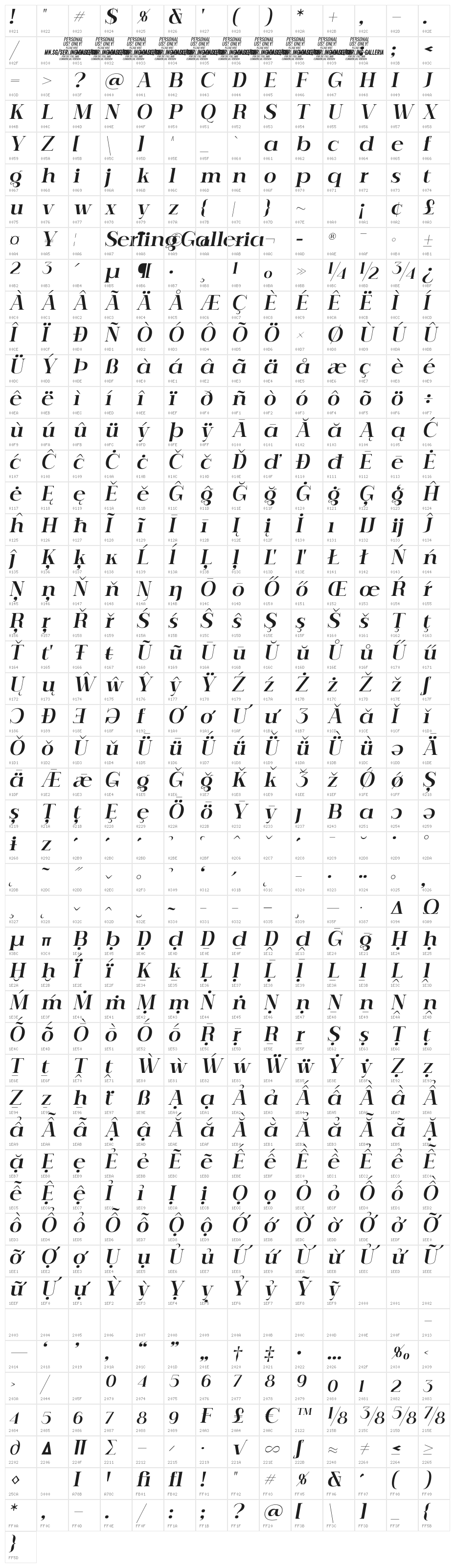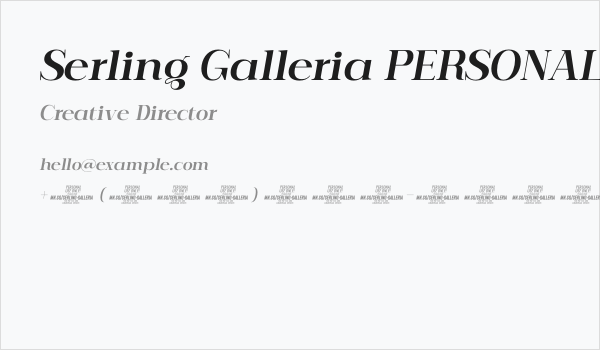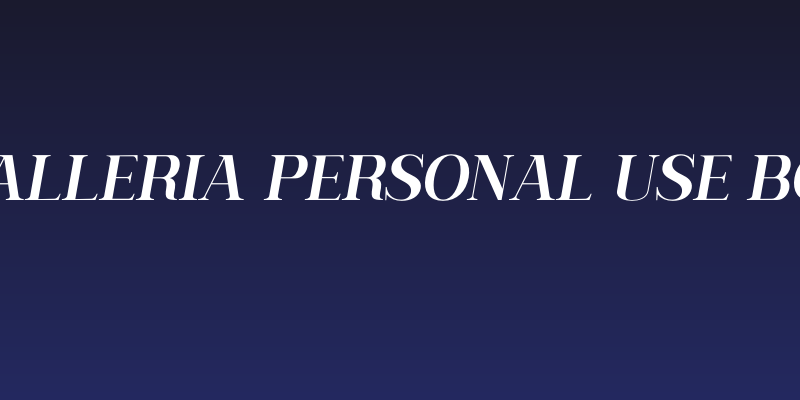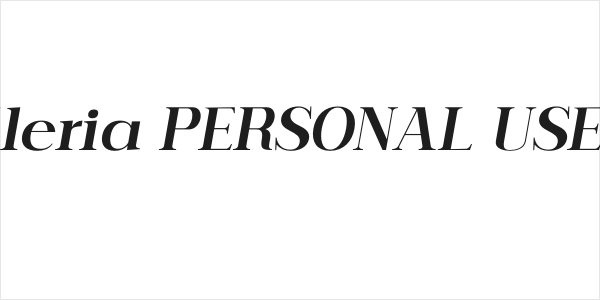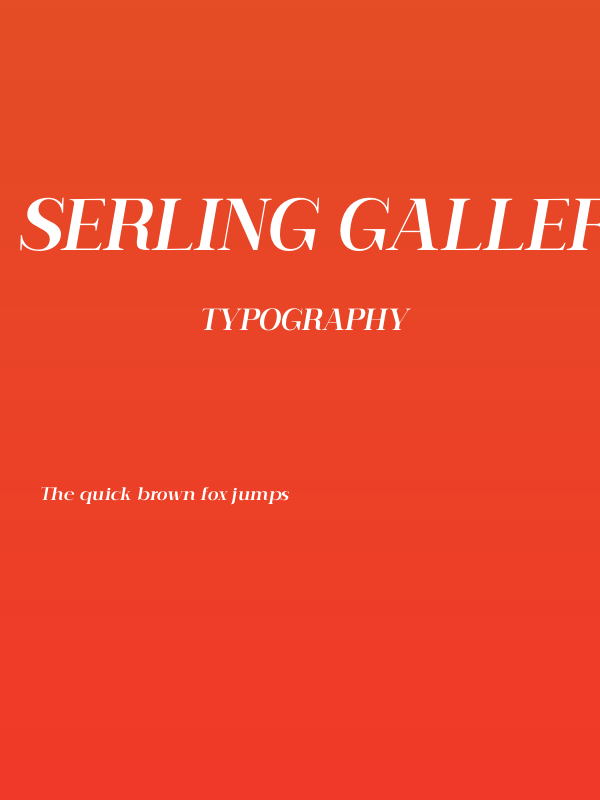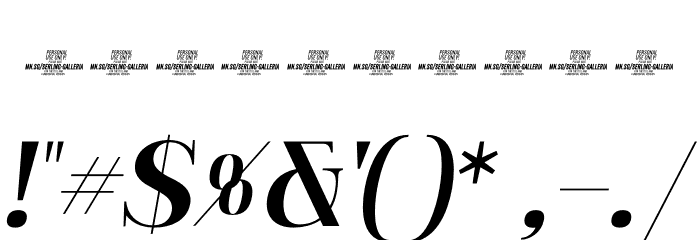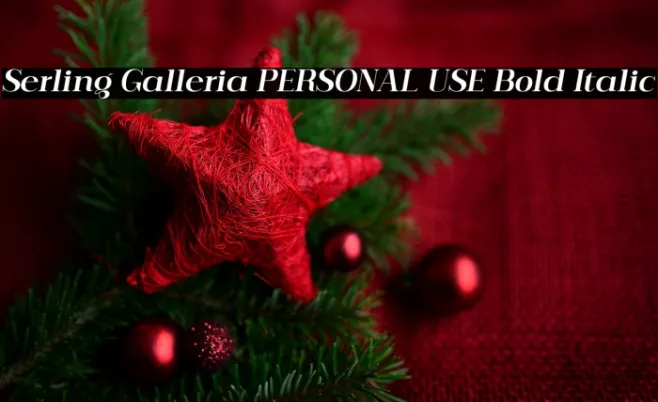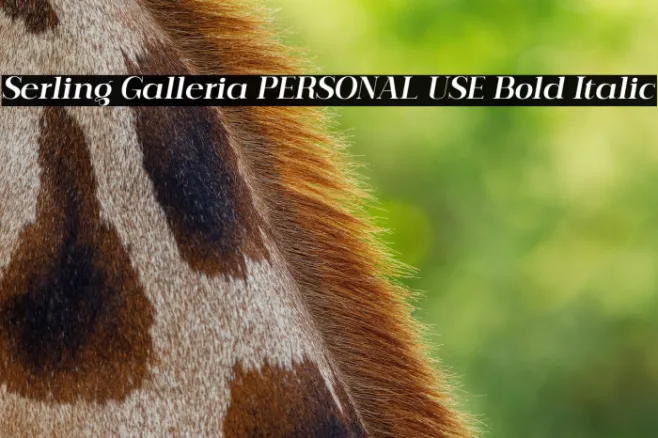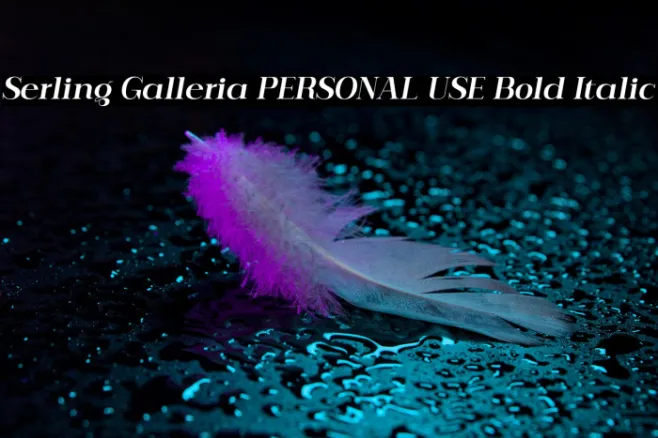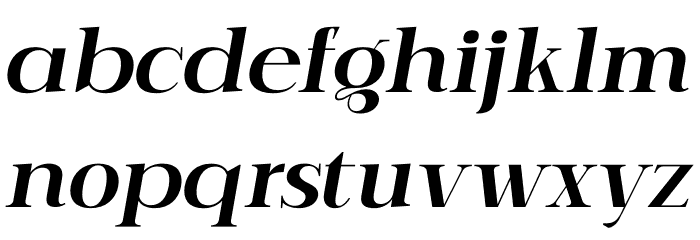
Serling Galleria PERSONAL USE Bold Italic Font
Serling Galleria PERSONAL USE Bold Italic Description
This font exudes elegance and sophistication with its bold and italicized serif style. The letters are gracefully slanted, giving a dynamic and fluid appearance. The strokes are thick and consistent, providing a strong presence on the page. The uppercase letters are stately and commanding, while the lowercase letters maintain a refined and cohesive look. The numerals are clear and easy to read, complementing the overall design. Special characters are well-integrated, maintaining the font's aesthetic. This font is perfect for projects that require a touch of class and formality.
| Overall Style | Classic |
| Use Case | Headlines, Logos, Invitations |
| Proposed Projects | Ideal for luxury branding, formal invitations, editorial headlines, and elegant packaging. |